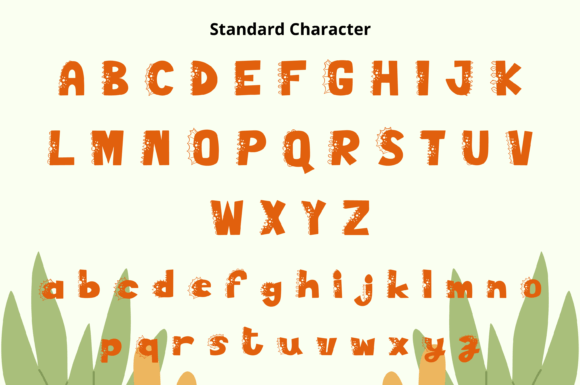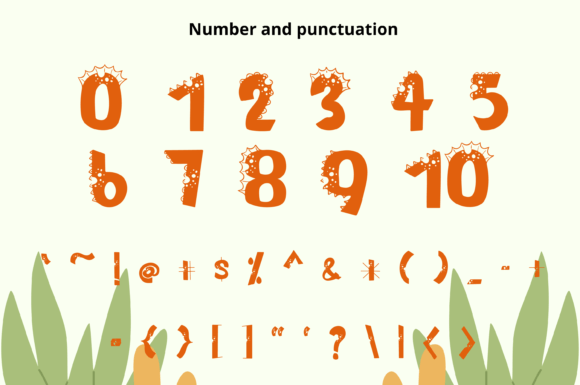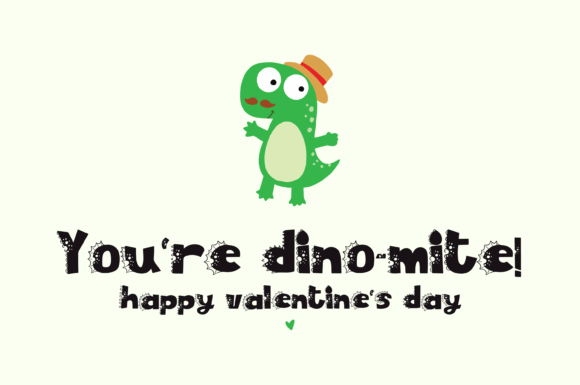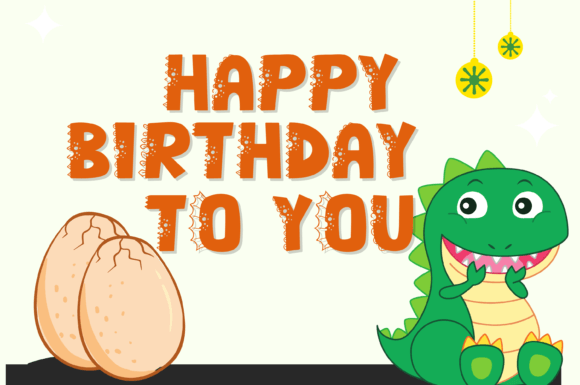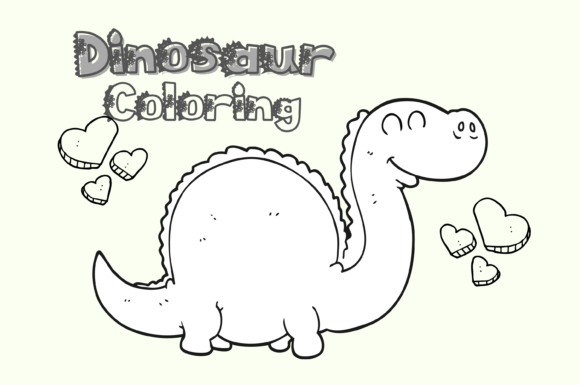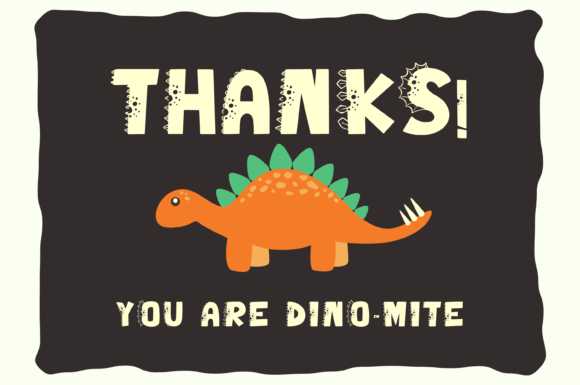
Dino Friend Font: The Perfect Addition to Your Design Collection
Are you a designer or crafter looking for a unique and eye-catching font to elevate your creative projects? Look no further than the Dino Friend Font. This whimsical and clean display font is sure to capture the attention of your audience with its creative style of characters. In this article, we’ll dive into the features and benefits of the Dino Friend Font, and explore how it can be used to bring your crafty ideas to life.
What is Dino Friend Font?
Dino Friend Font is a carefully crafted display font that boasts a distinctive and original look. Its whimsical design makes it perfect for a wide range of creative projects, from letterheads and titles to stationery and more. The font’s clean lines and detailed characters give it a unique personality that is sure to stand out in any design.
Key Features of Dino Friend Font
- Whimsical Design: The Dino Friend Font features a playful and imaginative design that is sure to capture the attention of your audience.
- Clean Lines: The font’s clean lines and simple shapes make it easy to read and versatile for use in a variety of creative projects.
- Original Look: The Dino Friend Font has a distinctive and original look that sets it apart from other fonts.
- Creative Style of Characters: The font’s characters are carefully designed to give it a unique personality and style.
Benefits of Using Dino Friend Font
The Dino Friend Font offers a range of benefits for designers and crafters. Here are just a few:
- Stand Out from the Crowd: The Dino Friend Font’s unique design makes it easy to stand out from the crowd and create eye-catching designs.
- Versatility: The font’s clean lines and simple shapes make it versatile for use in a wide range of creative projects.
- Easily Readable: The font’s clean design makes it easy to read, even at smaller sizes.
- Perfect for Crafty Ideas: The Dino Friend Font is perfect for crafty ideas, from letterheads and titles to stationery and more.
How to Use Dino Friend Font
The Dino Friend Font is easy to use and can be incorporated into a wide range of creative projects. Here are a few ideas to get you started:
- Letterheads and Titles: Use the Dino Friend Font to create eye-catching letterheads and titles that are sure to make a lasting impression.
- Stationery: Add a touch of whimsy to your stationery with the Dino Friend Font.
- Signage: The font’s clean design makes it perfect for use in signage, from store signs to event banners.
- Digital Designs: The Dino Friend Font can also be used in digital designs, from social media graphics to website headers.
Tips for Getting the Most Out of Dino Friend Font
Here are a few tips for getting the most out of the Dino Friend Font:
- Experiment with Different Sizes: The Dino Friend Font looks great at a range of sizes, from small and delicate to large and bold.
- Pair with Other Fonts: The font’s clean design makes it easy to pair with other fonts for added visual interest.
- Use in Combination with Images: The Dino Friend Font looks great in combination with images and graphics.
The Dino Friend Font is a unique and eye-catching addition to any design collection. Its whimsical design, clean lines, and original look make it perfect for a wide range of creative projects. Whether you’re a designer or crafter, the Dino Friend Font is sure to bring a touch of personality and style to your work. So why not give it a try and see the difference it can make?